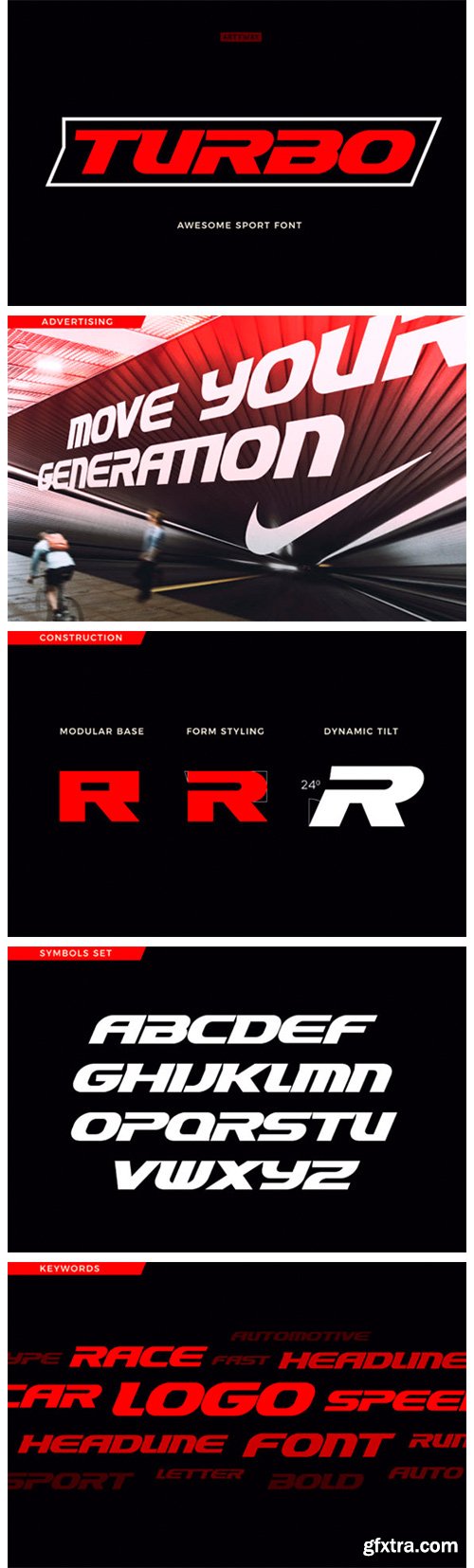
Turbo Font
Turbo is an assertive and cool display font. It will look stunning on any poster flyer or print. Use this font for your designs and explore its endless possibilities.